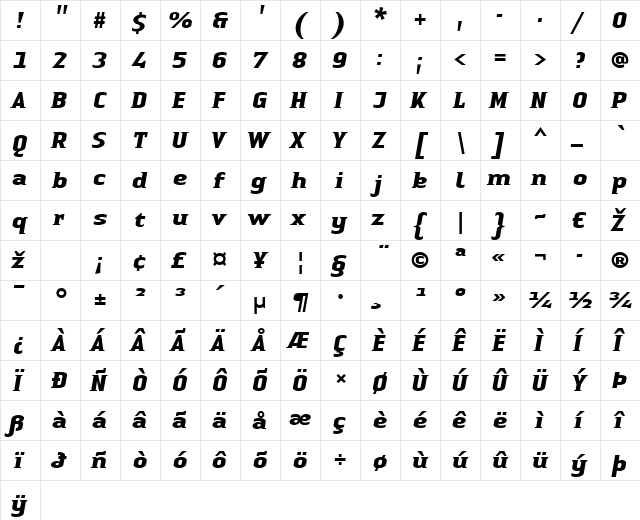
LTAuthenticSmallSerif Bold Italic Font Preview
| Designer | Karin Huschka |
Design Context for LTAuthenticSmallSerif Typeface
LTAuthenticSmallSerif carries the refined structure of traditional serif typography, with bracketed terminals and considered proportions that communicate credibility and craft. Its italic angle brings a sense of urgency and motion to the letterforms. The heavy weight commands attention and anchors typographic hierarchies.